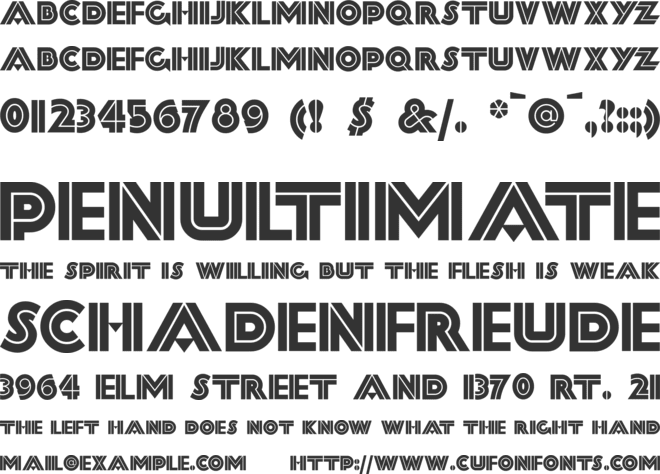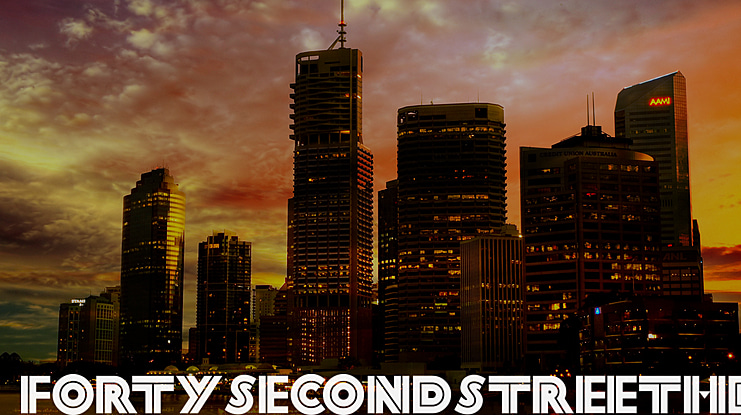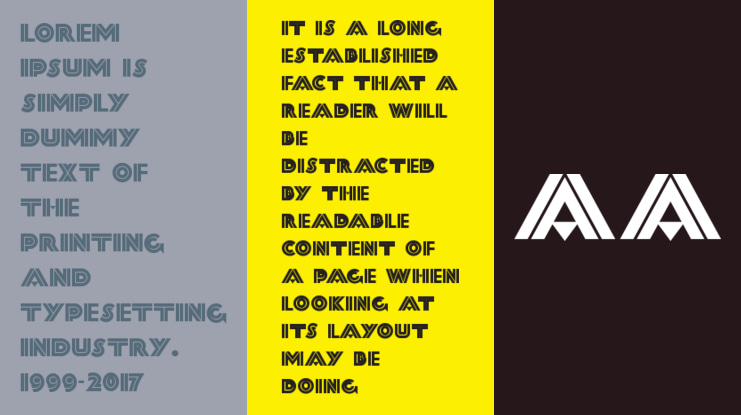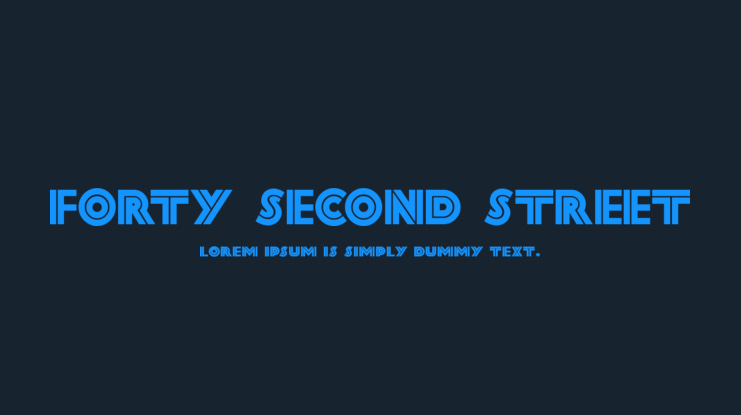
Forty Second Street Font
Naughty, haughty, gawdy, bawdy . . . the original version of this font was based on lettering seen on a poster for a movie of the same name. The new and improved version is based on the complete original font, as drawn by the fabulous Hunt Brothers.